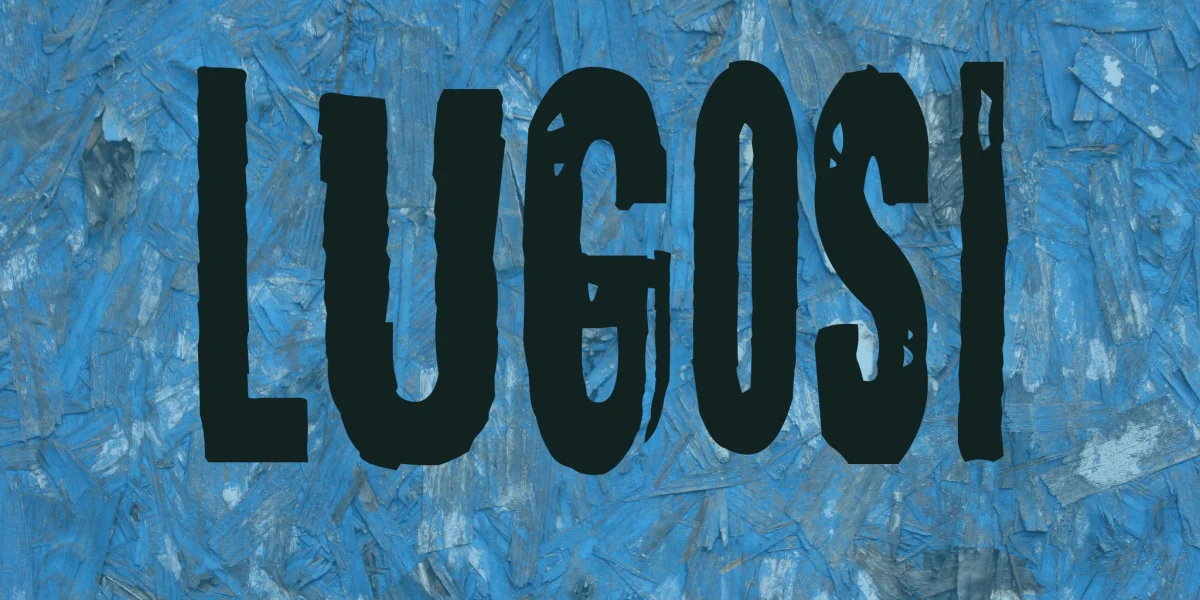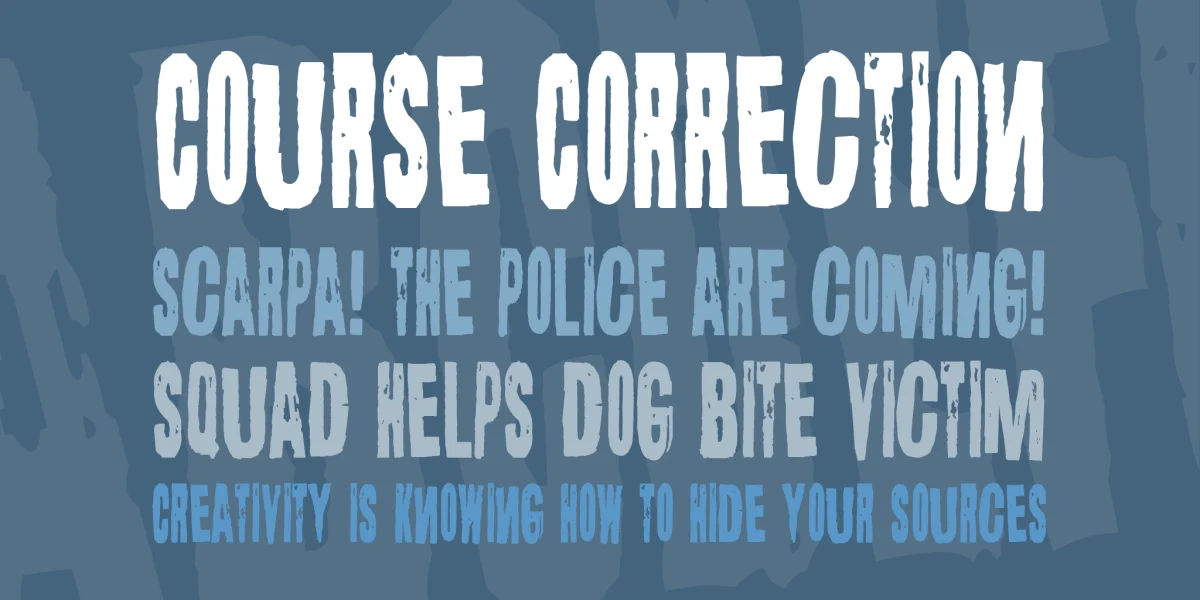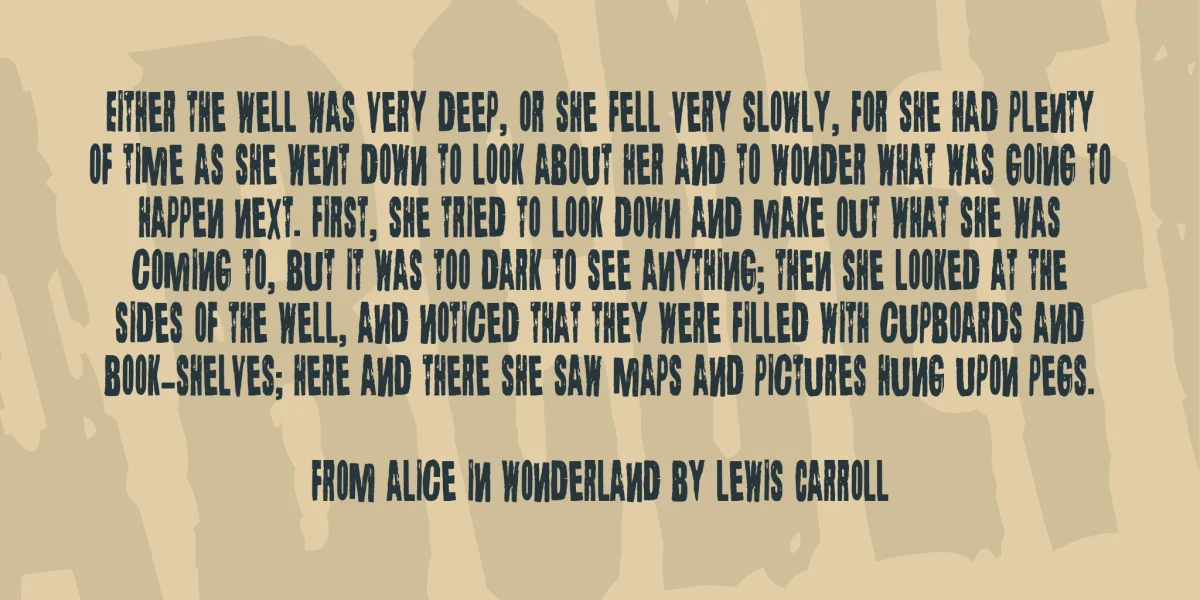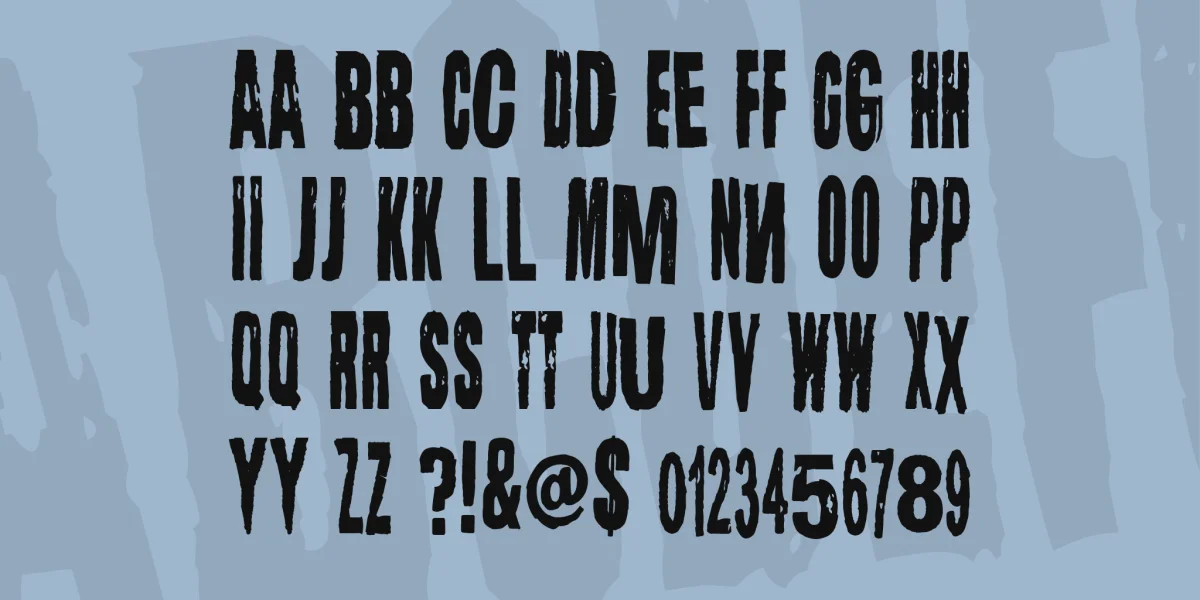
»Lugosi« is totally free font, enjoy it in your work. It is an informal grunge font, available for free download and use. Download of this grunge font for your collection. With this dirty, distressed and grungy font you can create a superb grunge design.This font was made to be used in pop art and artistic projects that involve action and emotion. Inspired by B-Movie Posters and by Visualism of the 1930´s Universal Horror Movies. With the name we tribute to the memory of the Bánát-born greatest actor of the world.